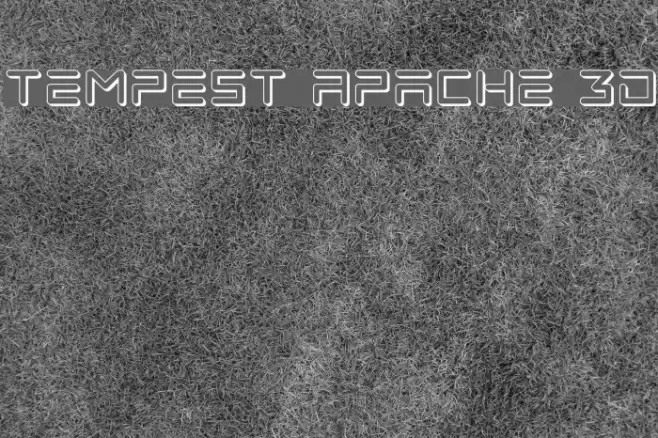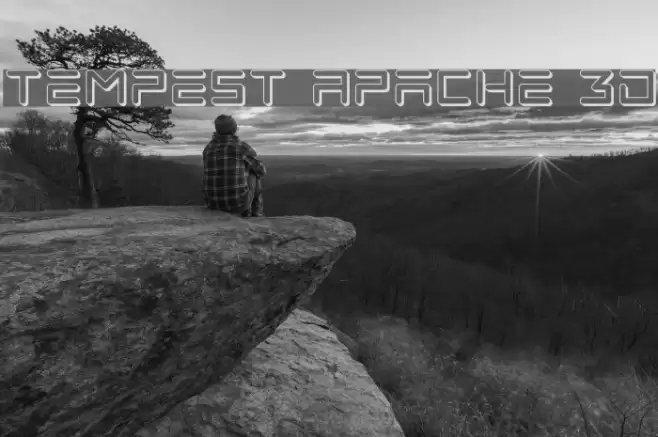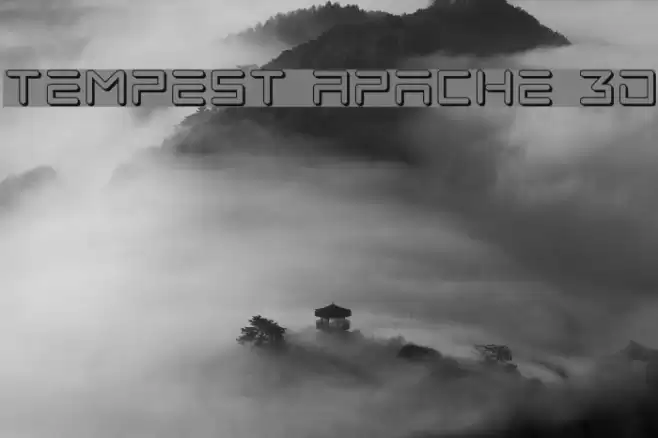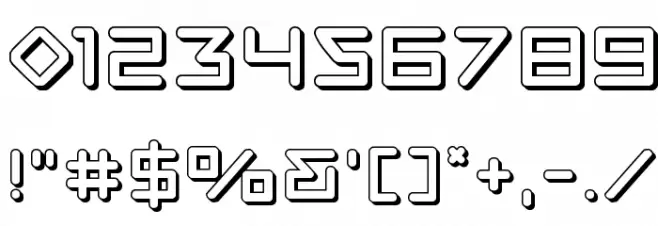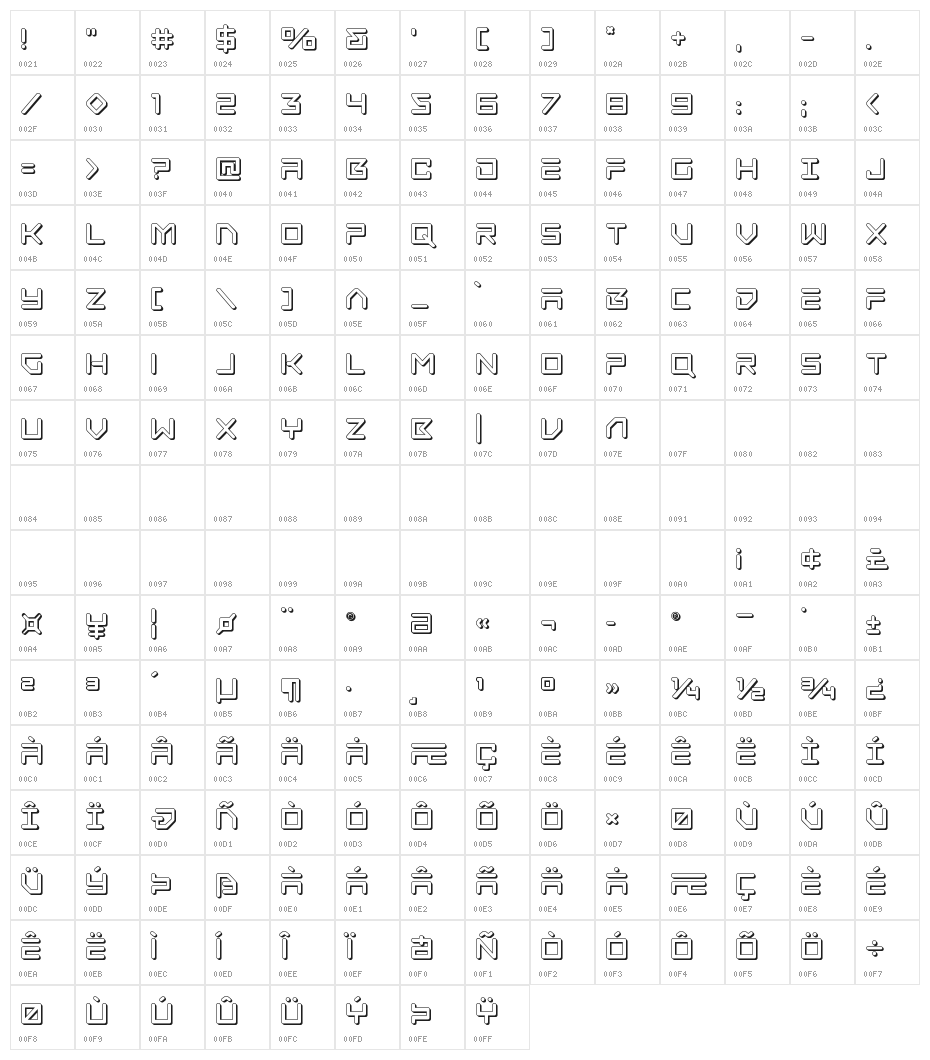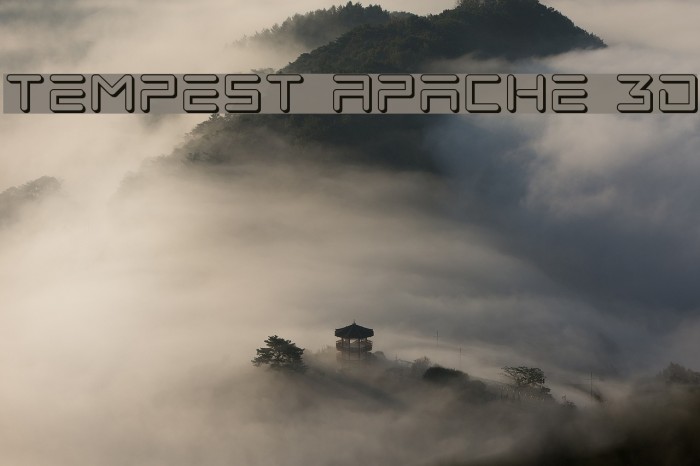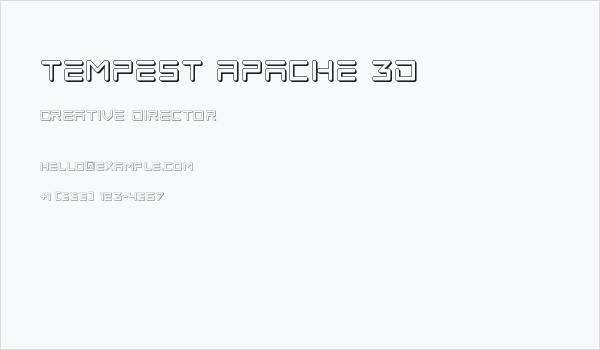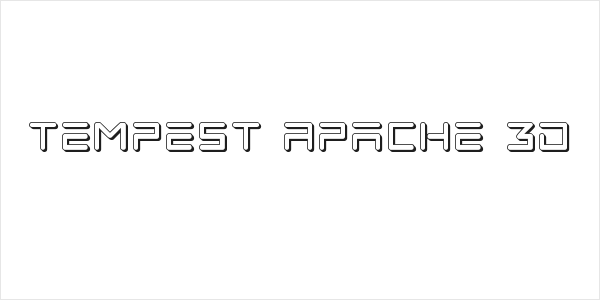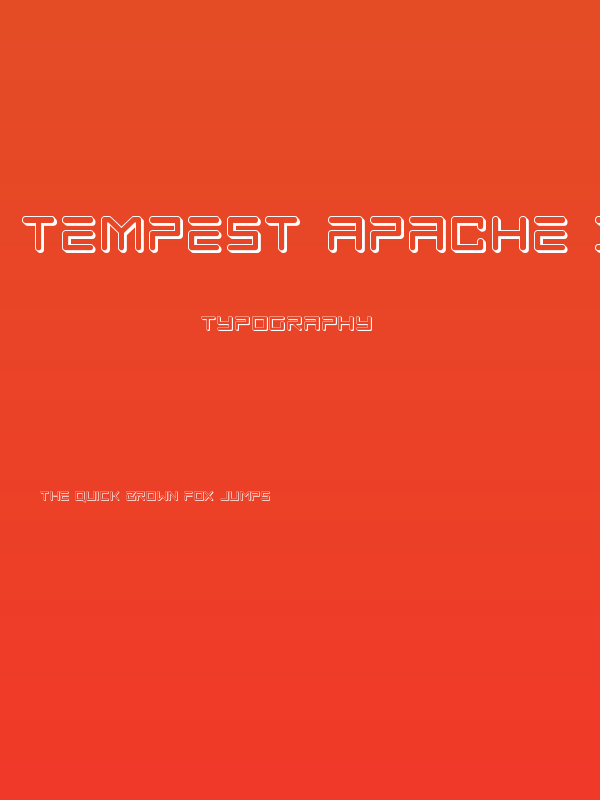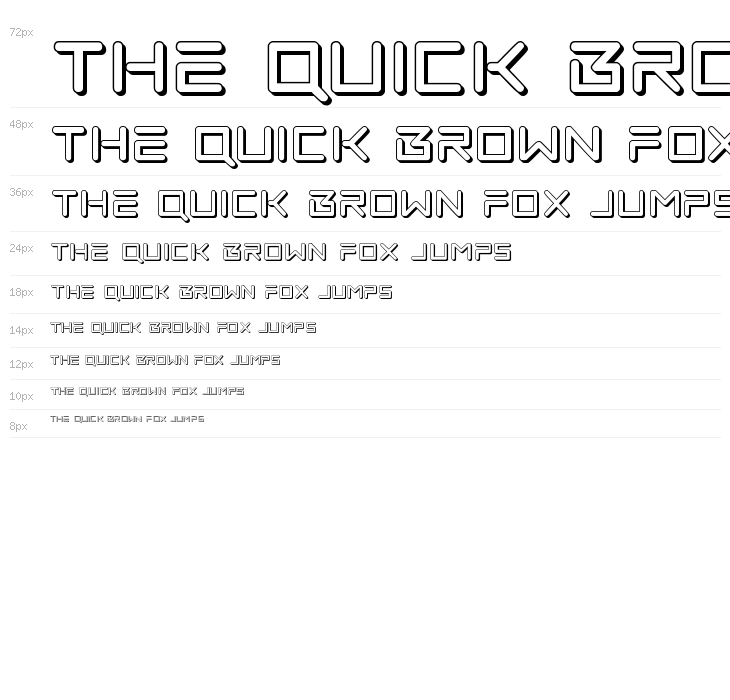
Tempest Apache 3D Font
Tempest Apache 3D Description
This font features a bold, futuristic design with a 3D effect that gives it a unique, standout appearance. The characters are outlined with a consistent stroke width, creating a hollow effect that enhances its modern aesthetic. The geometric shapes and sharp angles contribute to its tech-inspired look, making it ideal for projects that require a contemporary and innovative feel. The uppercase and lowercase letters maintain a uniform style, ensuring readability while adding a dynamic visual interest. The numerals and special characters are designed to match the overall theme, providing a cohesive look across all elements.
A bold, futuristic font with a 3D outline effect and geometric design from Uncategorized fonts.
- Proposed Projects: Ideal for technology branding, video game titles, sci-fi posters, and digital media.